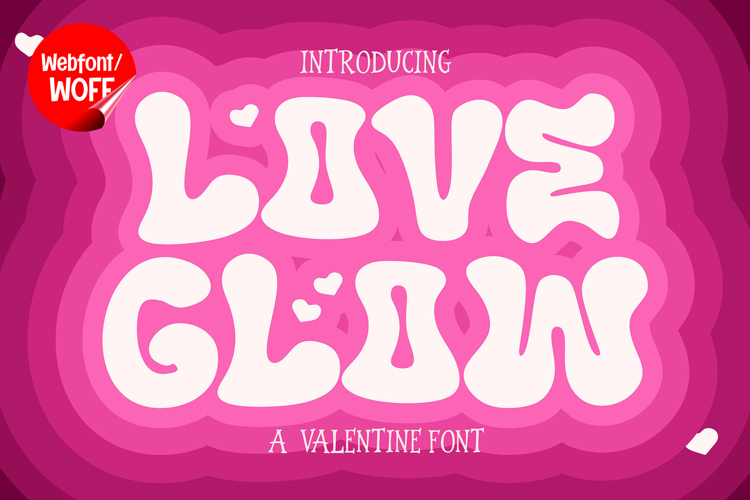
Love Glow | Cute Valentine Webfont for Romantic Websites
Love Glow is a cute and charming Valentine webfont designed to bring warmth, sweetness, and romantic vibes into website design. With its soft shapes and playful character style, this font creates a heartfelt visual atmosphere that feels inviting and engaging. It is a great choice for Valentine-themed landing pages, online gift shops, wedding websites, and lifestyle blogs that require a friendly and emotional touch.
Love Glow features a complete set of uppercase characters with a consistent and rounded design. These letterforms work well for headlines, banners, and featured text, helping important messages stand out while maintaining a soft and approachable look. The visual style naturally attracts attention and enhances the overall user experience.
The font also includes numbers and punctuation, making it flexible for various types of website content. It can be used for pricing displays, promotional messages, event details, and navigation elements while maintaining a cohesive appearance. Each character is designed to match the overall cute and decorative theme.
With multilingual support, Love Glow includes a wide range of accented characters, allowing content to be presented clearly across different languages. This makes it suitable for international websites and projects that require consistent typography for diverse audiences.
The overall style of Love Glow works especially well for love-themed visuals and cheerful branding. It is ideal for Valentine promotions, wedding pages, greeting content, handmade product showcases, and creative digital platforms. The rounded shapes and soft curves help create a welcoming and visually pleasing environment that encourages interaction.
Despite its decorative style, Love Glow maintains clarity and readability. The spacing and proportions are carefully balanced to ensure text remains easy to read in digital layouts. This makes it effective not only for large display text but also for smaller interface elements.
Love Glow is a webfont that combines playful aesthetics with practical usability. Its cute and romantic appearance adds character to any design, helping websites feel more engaging and visually distinctive.